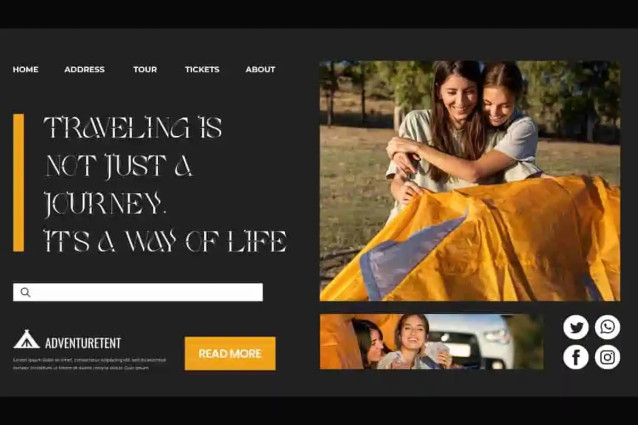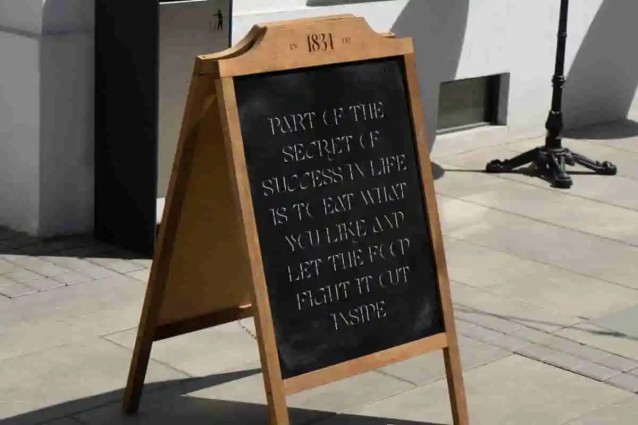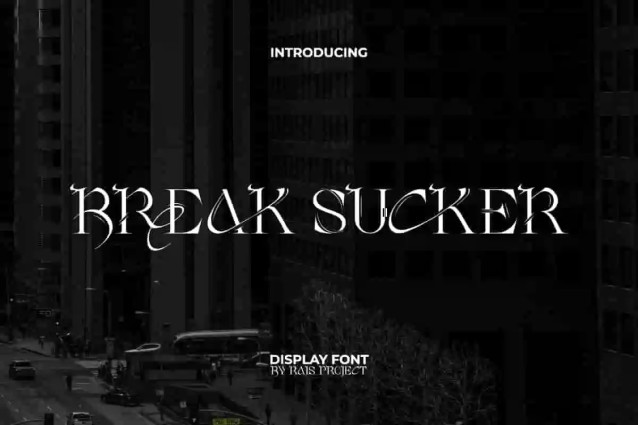
Break Sucker Font
Break Sucker Font is an aesthetic serif display font. It’s a dark modern display font with stunning mysterious yet eye catchy elegant font style. Add this font to make your design look dark but luxurious!. This font has a smooth stroke with a bold character that makes it stand out in every design created. It will be good for custom design, label, poster, invitation, signage, cover, menu, brand image, product packaging, quotes, stationery, web, and more!
Introducing Break Sucker Display Font – a bold, edgy, and high-impact typeface designed to push boundaries and grab attention instantly. With its sharp details, daring strokes, and modern street-inspired style, Break Sucker is the perfect choice for projects that demand power, confidence, and originality. From posters and merchandise to gaming graphics, branding, and digital content, this font ensures your designs never go unnoticed.
Break Sucker Display Font combines urban attitude with strong readability, making it ideal for logos, event promotions, advertising campaigns, apparel designs, and social media visuals. Its unique design captures the energy of rebellion and creativity, giving your projects a fearless personality that sets them apart. Whether you’re designing for entertainment, sports, or lifestyle brands, Break Sucker adds edge and intensity to your message.